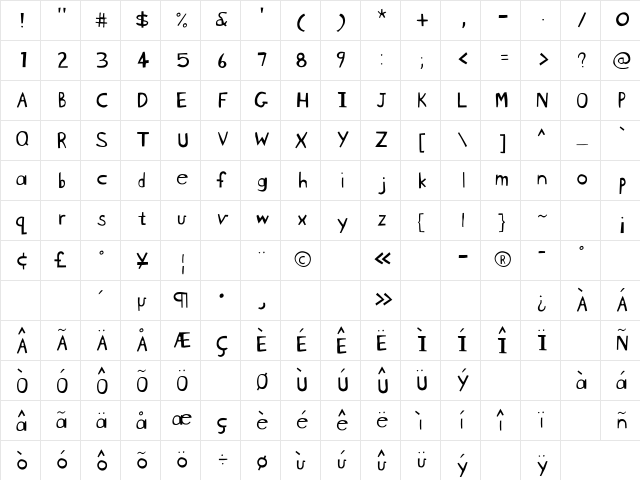
BlockheadUnplugged Roman
Design Context for BlockheadUnplugged Typeface
BlockheadUnplugged is a composed and adaptable typeface that performs quietly and consistently across a wide range of design contexts.